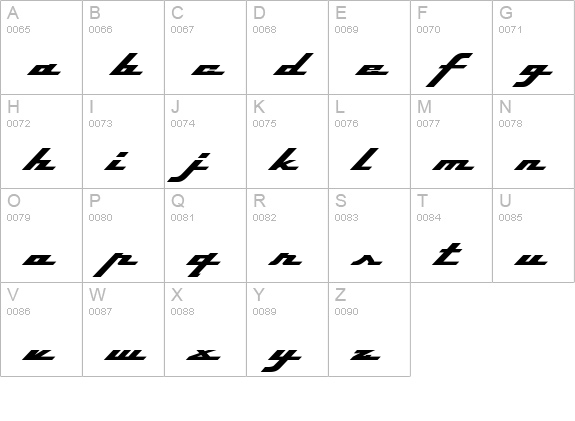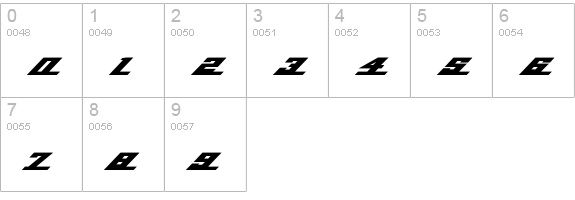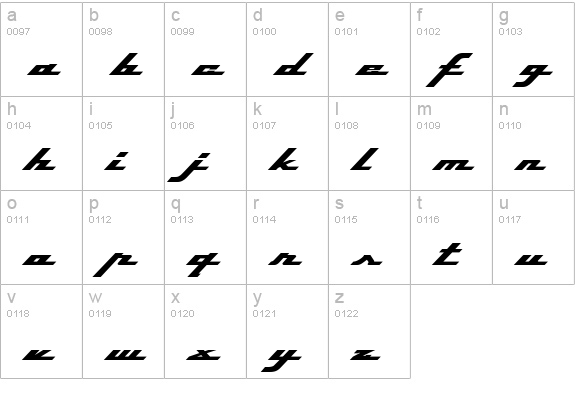
Top Speed Heavy Font Details
Top Speed Heavy is a heavy, high-impact variant in the Top typeface family \xE2\x80\x94 well suited to high-impact headlines, posters, and display advertising.
Introducing Top Speed Heavy font, a powerful and dynamic typeface that will inject a burst of energy into your designs. With its bold and robust letterforms, this font exudes strength and confidence, making it perfect for projects that demand attention. Top Speed Heavy font is designed with a high-speed aesthetic in mind, capturing the essence of velocity and dynamism. Its thick strokes and sharp angles create a sense of movement, giving your designs a sense of urgency and excitement. Whether you're working on a poster for a thrilling sporting event, an adrenaline-fueled logo, or an edgy magazine layout, Top Speed Heavy font is the perfect choice to convey speed and power. Its versatility allows it to be used for a wide range of design projects, giving your work a bold and impactful appearance. And the best part? Top Speed Heavy font is completely free! Yes, you read that right. This stunning typeface is available to download at FontsMarket.com without any charge. We believe that great design should be accessible to everyone, and that's why we're offering this font for free, allowing you to add a touch of speed and energy to your projects without breaking the bank. So why wait? Download Top Speed Heavy font now and unleash its untamed energy in your designs. Whether you're a professional designer or a passionate hobbyist, this font will take your work to new heights. Don't miss out on this incredible opportunity to add a dash of excitement to your designs. Get Top Speed Heavy font today, and let your creativity soar.